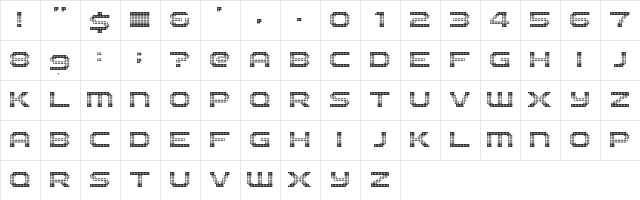
The 2K12 Regular
| Designer | nipcen |
Design Context for The 2K12 Typeface
The 2K12 is a composed and adaptable typeface that performs quietly and consistently across a wide range of design contexts.